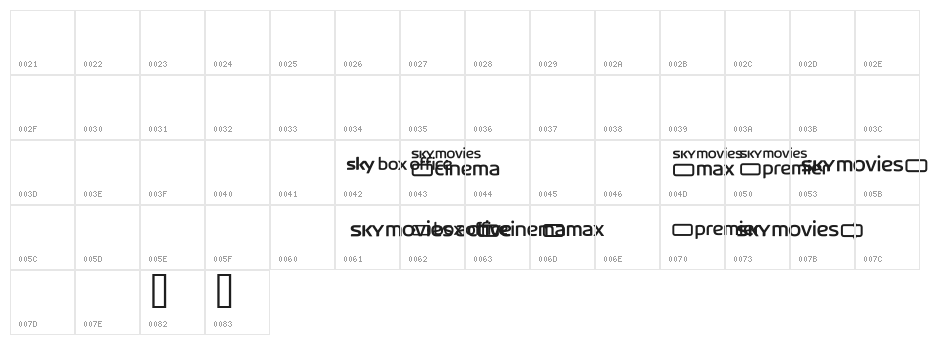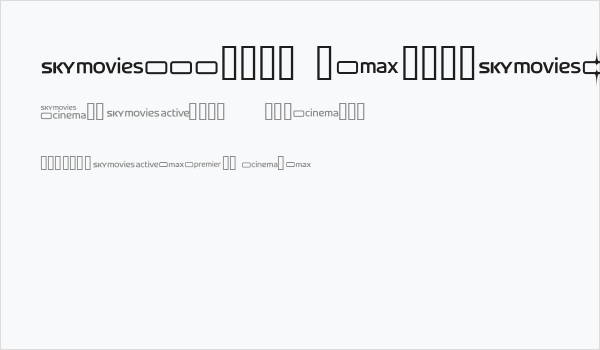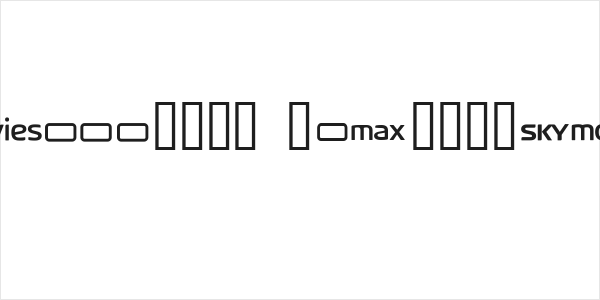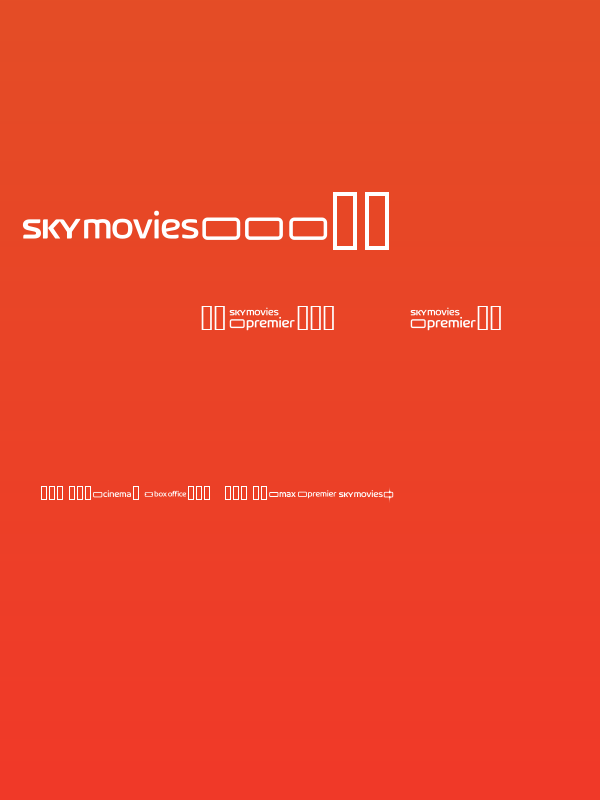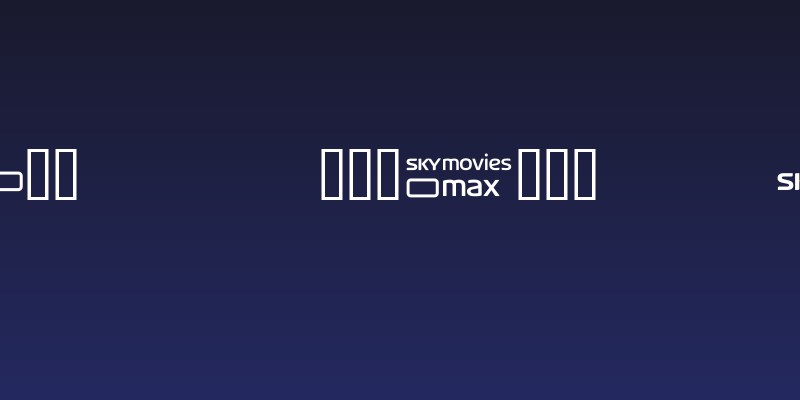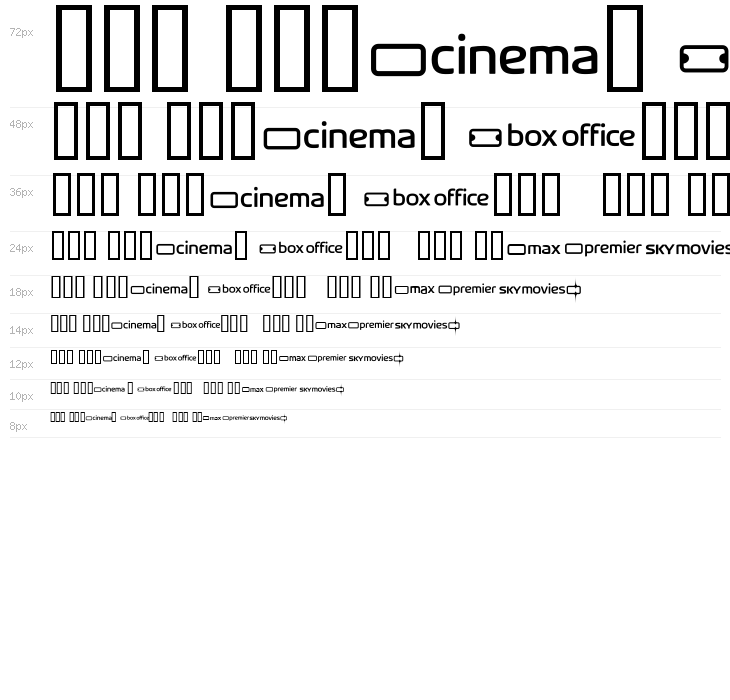
SKYfontmovies Font
SKYfontmovies Description
This font features a sleek, modern design with a strong emphasis on clean lines and geometric shapes. The characters are crafted with a uniform stroke width, giving it a consistent and balanced appearance. The font is highly legible, making it suitable for a variety of applications. Its contemporary style is enhanced by the use of sharp angles and smooth curves, creating a dynamic and engaging visual impact. The font's simplicity and clarity make it ideal for both digital and print media, ensuring readability across different platforms. Its versatile nature allows it to be used in a wide range of design projects, from branding and advertising to editorial and web design.